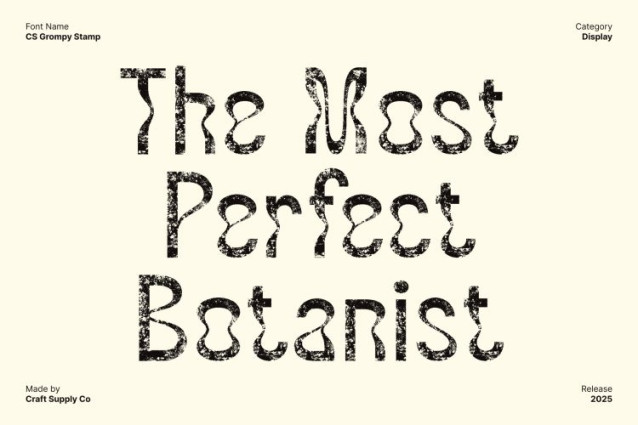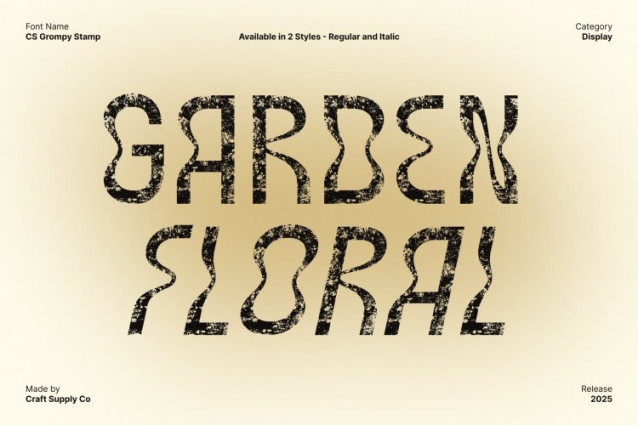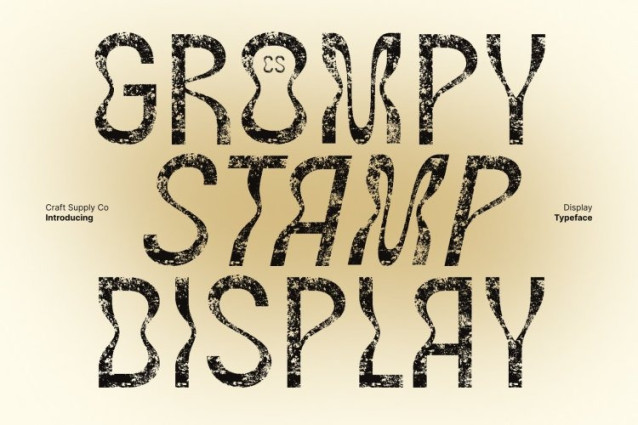
CS Grompy Stamp Font
CS Grompy Stamp Font This is a bold sense of creativity through its curving, unconventional letterforms. Each character bends and flows with experimental shapes, capturing a vibrant, funky mood that instantly energizes any design. This playful movement makes the font perfect for projects that celebrate imagination and expressive visual identity.
Vintage Energy Through Stamp Texture
Enhanced with a distinct stamp texture, the font gains a tactile, handcrafted feel. The rough, imperfect detailing adds depth and uniqueness, infusing each letter with vintage character. This combination of psychedelic form and textured finish creates a dynamic aesthetic that feels alive, artistic, and full of personality.
Perfect for Music Posters and Creative Branding
Whether used for music event visuals, alternative branding, or bold artistic layouts, excels in making statements. Its psychedelic style draws attention, while the textured effect gives it an impactful, memorable presence ideal for design work that seeks to stand out.
Versatile for Experimental and Visual Art Projects
From album covers and festival posters to expressive typographic compositions, this font adapts beautifully to creative contexts. Its blend of surreal curves and vintage texture ensures your designs feel vibrant, playful, and unmistakably original.